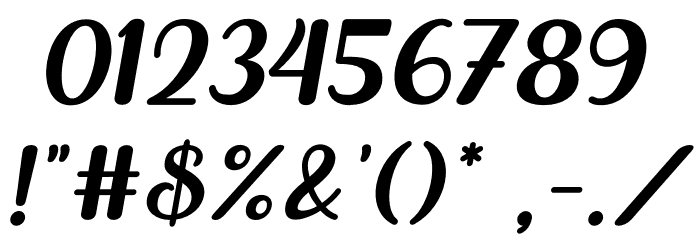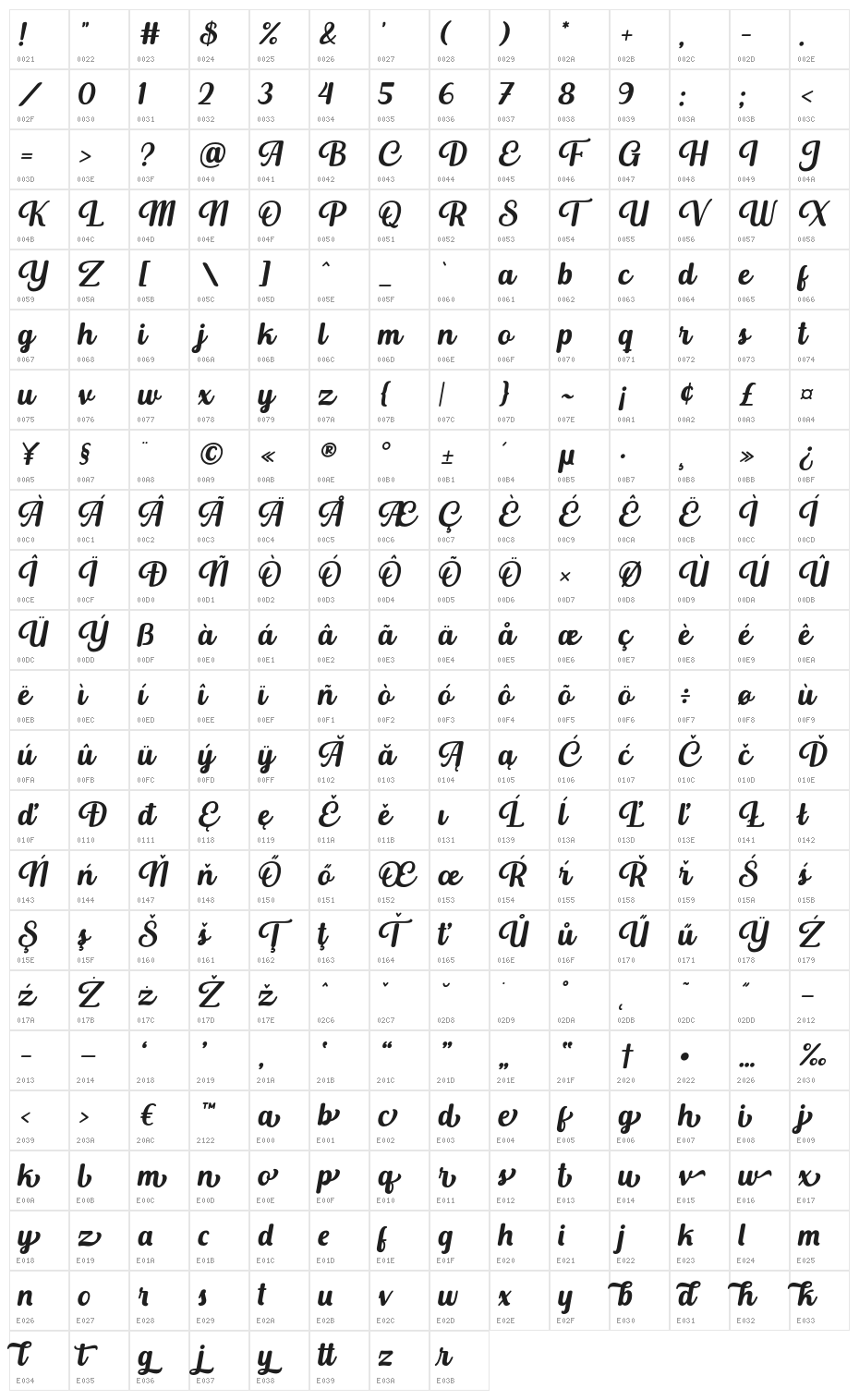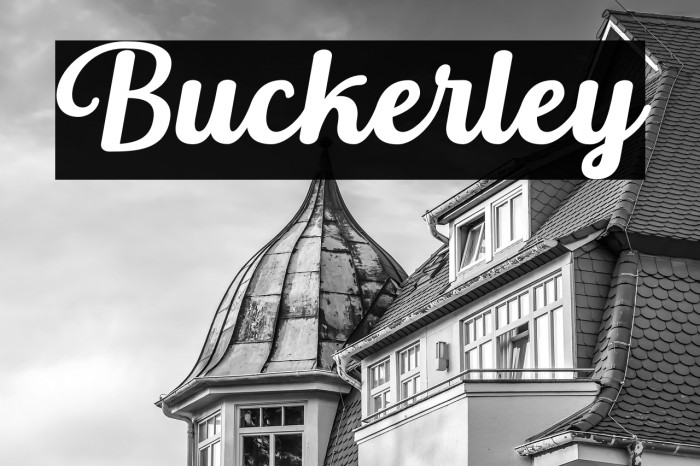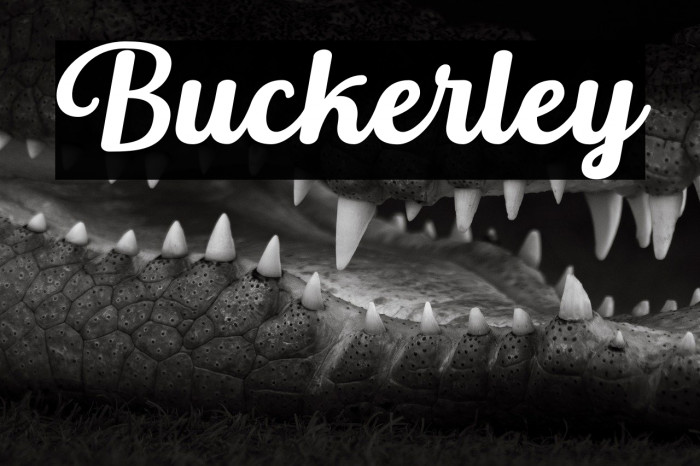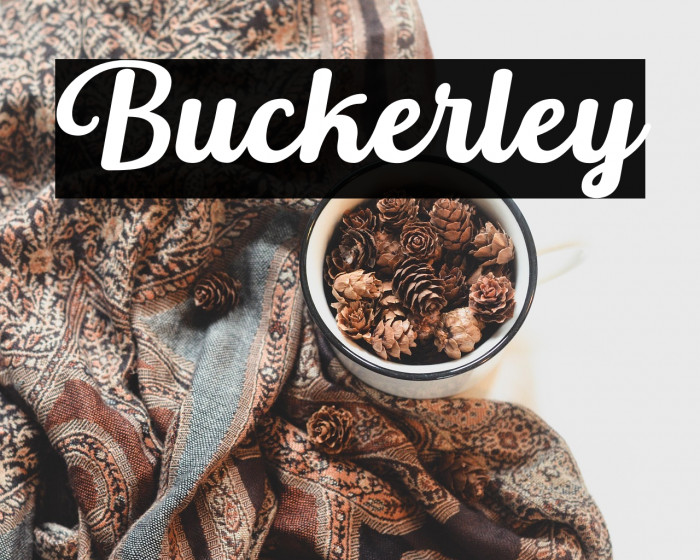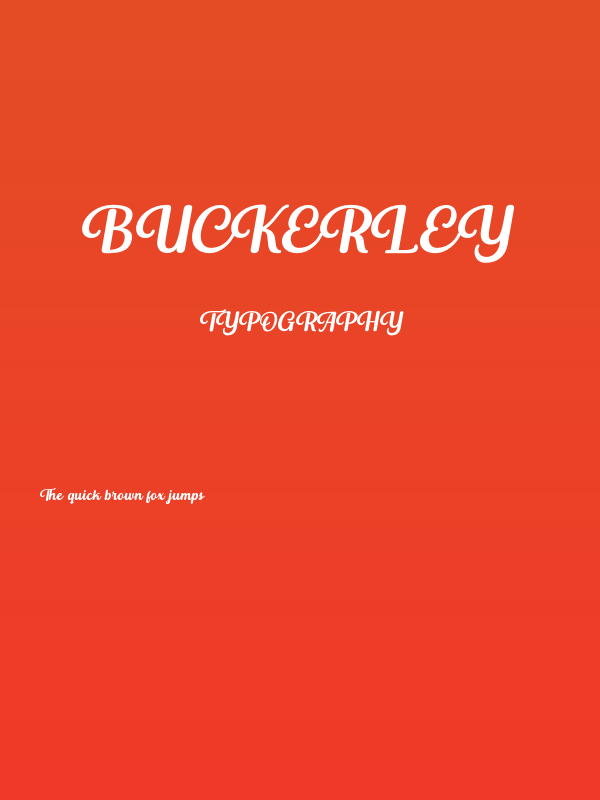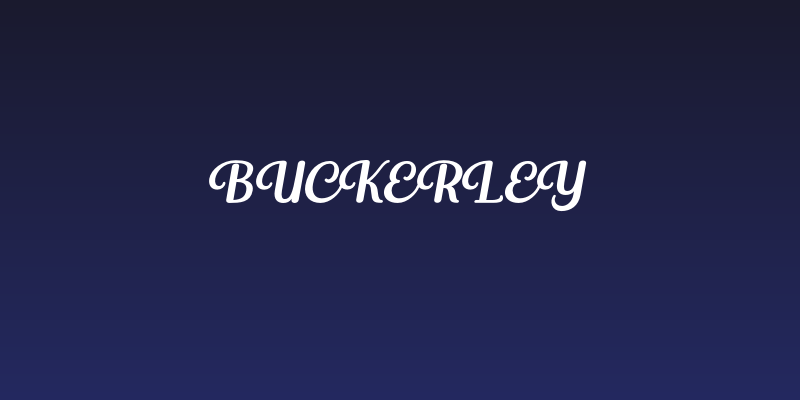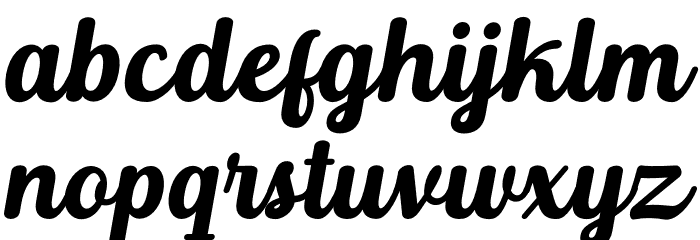
Buckerley Font
Buckerley Description
This font exudes a classic script style with a modern twist, characterized by its elegant and flowing cursive letters. The uppercase letters are gracefully connected with smooth curves, while the lowercase letters maintain a consistent rhythm and balance. The numerals are bold and clear, ensuring legibility. Special characters are thoughtfully designed to complement the overall aesthetic. The font's style is both sophisticated and approachable, making it versatile for various design needs.
| Proposed Projects | Ideal for wedding invitations, elegant branding, greeting cards, and upscale packaging. |